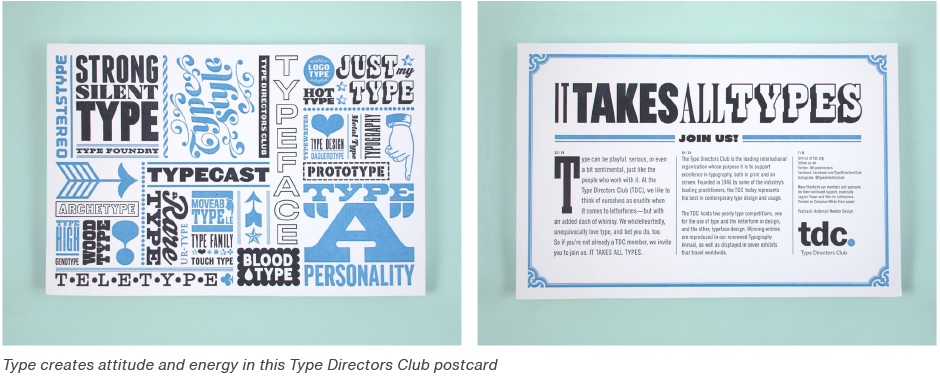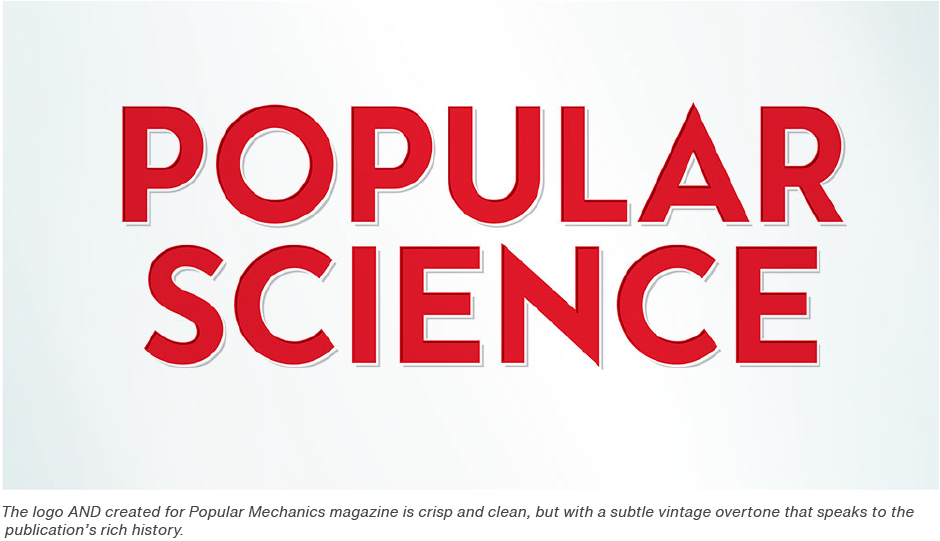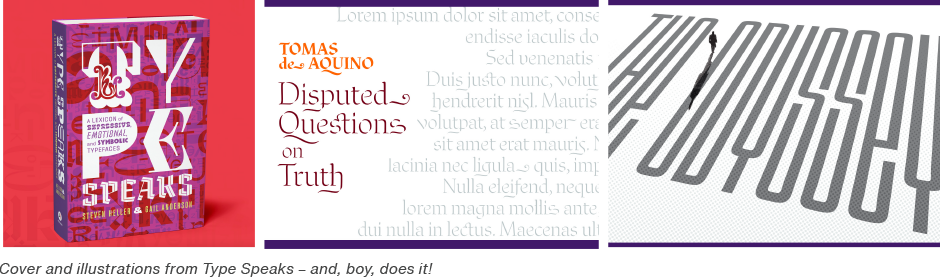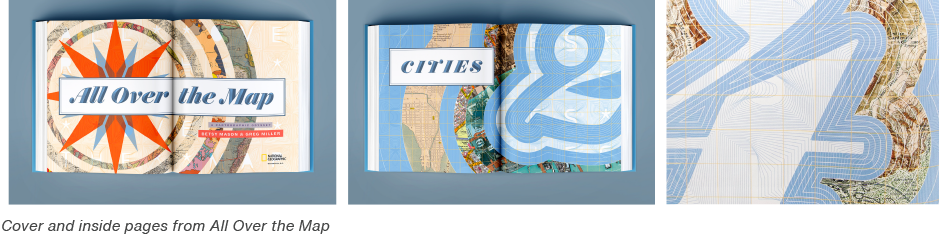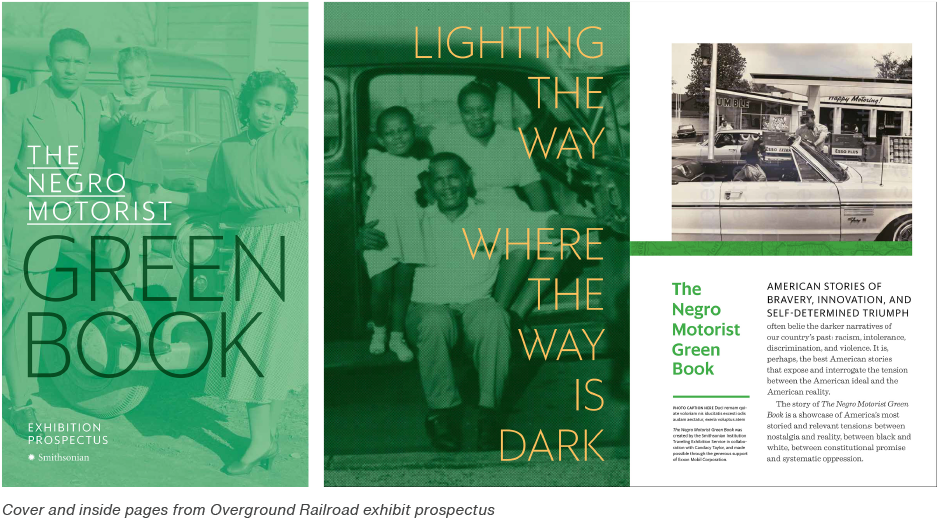
Type Trends: 2022 Q2 Trends by Gail and Joe
I’m easily seduced by playful solutions and vernacular type. But the classics are still breathtaking, timeless, and ultimately irresistible.
Gail Anderson
A Dynamic Duo Talks About Type
Marvel Comics has Black Widow and Daredevil. Ice Cream lovers have Ben and Jerry. Movie buffs have Thelma and Louise. What about typophiles? Well, they’ve got Gail Anderson and Joe Newton.
Meet Gail and Joe
We recently sat down with Gail Anderson and Joe Newton, of AND (Anderson Newton Design), and talked about one of their favorite subjects: typographic design. Gail and Joe launched the studio, early in 2012, as an agency dedicated to sophisticated yet spirited design – with a focus on typography. A focus, by the way, that is laser sharp and delightfully playful.
From 2002 through 2010, Gail served as Creative Director of Design at SpotCo, a New York City advertising agency that creates artwork for Broadway and institutional theater. Prior to that, she worked at Rolling Stone magazine, eventually serving as the magazine’s senior art director. She has written for books, magazines, and blogs, and lectures around the world on all things design.
Gail is currently Chair of the School of Visual Arts (SVA) BFA Design and BFA Advertising departments, and serves as creative director at the school’s Visual Arts Press, the in-house design studio for the school. Her work has been recognized by design organizations including The Society of Publication Designers, TDC, AIGA, The Art Directors Club, Graphis, HOW, Print and Communication Arts.
Oh, and Gail also creates, drop-to-your-knees-good, typographic design.
Joe has worked both sides of the table. As an art director he has created countless covers and features, and assigned hundreds of illustrations and photos for Rolling Stone and Seattle’s The Stranger. At Veer Joe was responsible for the visual identity and content curation of the Fonts division. His typographic design, looks like bacon smells.
As an illustrator, Joe has worked with publications such as the New York Times, Vibe and Nickelodeon magazine, and for clients like Sony Music and Publicis. His artwork has been honored by American Illustration, Communications Arts, and Print. While his design has been recognized by the Print Magazine, the Society of Publication Designers and the Society of Illustrator
It’s About Novelty, Voice and Energy
Gail and Joe are a team. They work together – closely – and complement each other’s work. This doesn’t mean, however, that they are of a single mind, when it comes to making great typographic design.
Want to learn more about how this dynamic duo works together, and what drives their design? “Listen-in” to our conversation below.
AND’s typographic solutions are very illustrative and evocative. What’s the thinking behind this?
Joe Newton (JN): I started my career as an illustrator. I see type as a physical part of the composition; a word image. It should never simply be layered on top of a design. Type can have an expressive, physical presence. I think Gail treats type in a similar way. We both have an editorial design background. My first gig was at a newsweekly with a minimal art budget. Type offered a way to create attitude and energy.
What drives your personal choices of typeface and typographic design?
Gail Anderson (GA): I’m easily seduced by playful solutions and vernacular type. But the classics are still breathtaking, timeless, and ultimately irresistible. I don’t feel like I have a light enough touch or know when to stop, so it’s easier to work with the sillier stuff.
JN: Oooh, what she said! Too much is never enough. I spent half a dozen years as Head of Type for Veer.com (which distributed fonts and stock images.) I had to figure out how to convince customers why each typeface was unique and worthy of their money. So I created specimens for each release. Even now, each time I see a new typeface that I love, I want to put it to work. I want a new typeface for each project.
What guidance would you give in making typeface choices?
GA: There’s an amazing world of type out there – so much more than the stuff that comes with your computer. Do a deep dive on MyFonts.com, buy old type books, and build up your personal collection of favorites.
When you’re looking for the appropriate typeface, try not to go the “on-the-nose” route, of typing in “chocolate” in the search bar, when you’re branding a chocolate bar. Too easy. Too obvious. And almost never right.
JN: As Gail said, get outside the system fonts on your computer. If your project suggest options, give them a try. And think about what’s right for the client or product, and not just your own tastes. Many designers say “I like simple.” But is that what the project needs? Great websites like Fonts In Use and Letterform Archive are full of inspiration.
Last Words From Joe
I think currently there is a reaction to the branding trend of the last decade, which stripped everything down to a universally inoffensive sans. Now people are trying to give more particular voices to type, to make the brands feel more human and communication more lively.